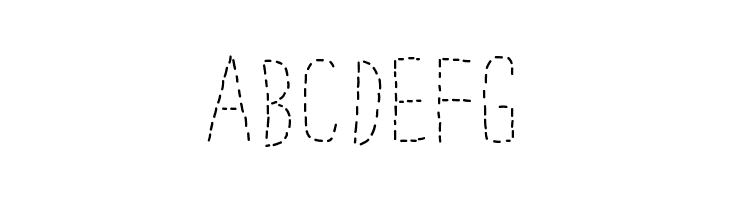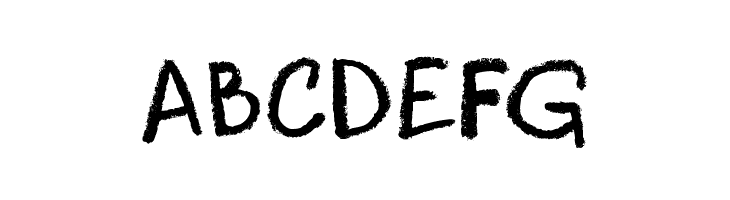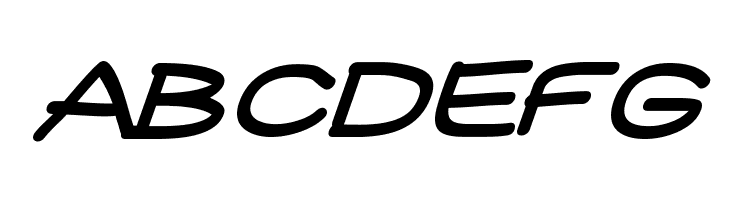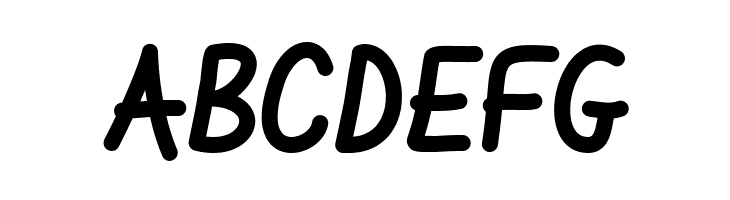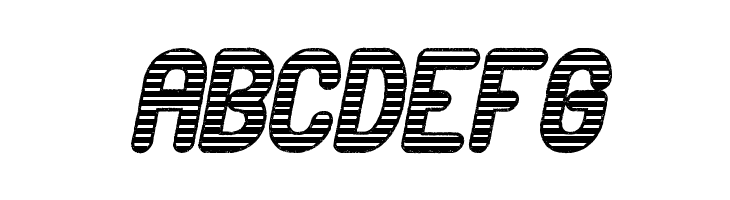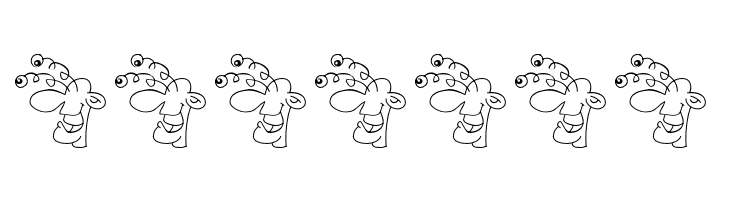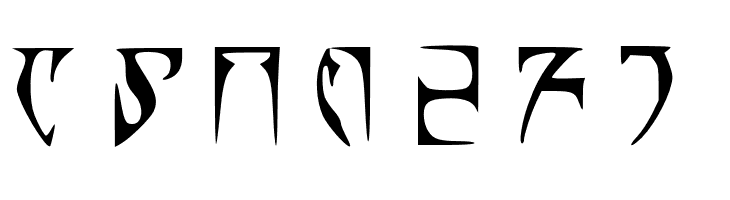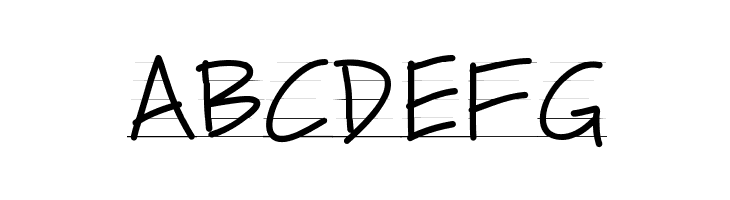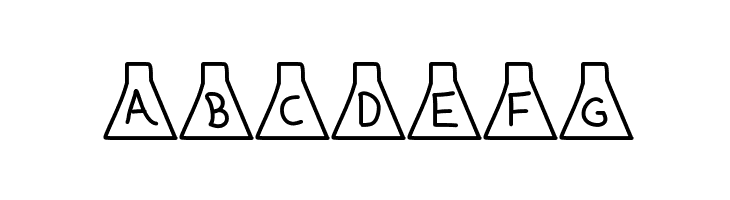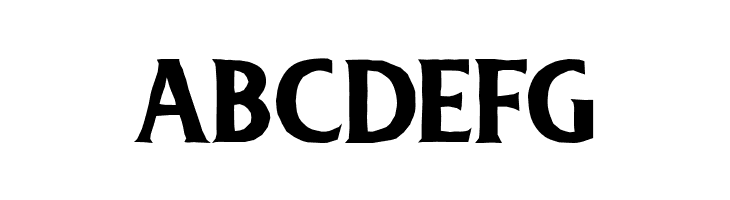
A dotted font with geometric, evenly spaced characters.
Whimsical animal-face decorative font with unique expressions for each character.
A playful and dynamic script font with smooth, flowing lines and a handwritten appearance.
A bold, metallic block serif font with a three-dimensional, industrial look.
A bold, decorative font with a unique horizontal striped pattern.
Hand-drawn, whimsical font with playful illustrations and casual, uneven letters.
A decorative, cartoonish doodle font with unique illustrations for each character.
A decorative font styled like currency symbols and denominations.
A bold, textured font with a hand-drawn, dynamic aesthetic.
A playful, handwritten-style font with a casual and friendly appearance.
A playful, animal-themed decorative font perfect for children's projects.
A bold, rugged font with a hand-crafted, organic appearance.
A playful, handwritten-style font with a childlike, informal appearance.
A bold, graffiti-inspired font with sharp, angular lines and a rebellious aesthetic.
A bold, distressed font with a grunge aesthetic, perfect for impactful designs.
Instructional pictogram font inspired by airline safety cards.
A playful and whimsical set of hand-drawn doodles with bold outlines.
A modern sans-serif font designed for clear and readable fraction display.
A playful, handwritten-style italic font with smooth, rounded strokes.
A dotted, playful font with evenly spaced dots forming character outlines.
A dotted educational font designed for handwriting practice.
A classic serif font with elegant numerals and musical notation symbols.